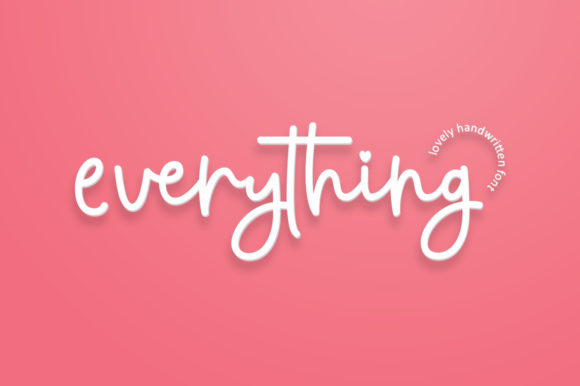
Everything Script Font: The Ultimate Guide to Modern Handwritten Typography
The Everything Script font has taken the design world by storm with its modern handwritten style, allowing users to create stunning hand-made typography in an instant. In this comprehensive article, we’ll dive into the world of Everything Script, exploring its features, benefits, and uses. Whether you’re a designer, artist, or simply a typography enthusiast, this guide is for you.
What is Everything Script Font?
The Everything Script font is a modern handwritten font designed to bring a touch of elegance and sophistication to your designs. With its fluid strokes and natural flow, this font is perfect for creating beautiful hand-made typography. Whether you’re working on a branding project, a wedding invitation, or a social media post, Everything Script is the perfect choice.
Key Features of Everything Script Font
- Modern Handwritten Style: Everything Script boasts a modern handwritten style that’s both elegant and legible.
- Fluid Strokes: The font features fluid strokes that give it a natural, hand-written feel.
- High Versatility: Everything Script is highly versatile, making it suitable for a wide range of design projects.
- Easy to Use: The font is easy to use, even for those with limited design experience.
Benefits of Using Everything Script Font
So, why should you choose Everything Script for your design projects? Here are just a few benefits of using this amazing font:
- Adds a Personal Touch: Everything Script adds a personal touch to your designs, making them stand out from the crowd.
- Enhances Readability: The font’s clear and legible design ensures that your text is easy to read.
- Time-Saving: With Everything Script, you can create beautiful hand-made typography in an instant, saving you time and effort.
Uses of Everything Script Font
Everything Script is a highly versatile font that can be used in a wide range of design projects, including:
- Branding and Logo Design: The font is perfect for creating elegant and sophisticated brand identities.
- Wedding Invitations and Stationery: Everything Script is a popular choice for wedding invitations, save-the-dates, and other stationery designs.
- Social Media Graphics: The font is great for creating eye-catching social media graphics, including Facebook posts, Instagram stories, and Twitter headers.
- Packaging Design: Everything Script can be used to create beautiful and eye-catching packaging designs.
Tips for Using Everything Script Font
Here are a few tips for getting the most out of Everything Script:
- Experiment with Font Sizes: Don’t be afraid to experiment with different font sizes to create visual interest.
- Pair with Other Fonts: Everything Script pairs well with other fonts, so don’t be afraid to get creative with font combinations.
- Use on Dark Backgrounds: The font looks great on dark backgrounds, so don’t be afraid to get creative with your design.
In conclusion, Everything Script is a modern handwritten font that’s perfect for creating beautiful hand-made typography. With its fluid strokes, natural flow, and high versatility, this font is a must-have for designers, artists, and typography enthusiasts. Whether you’re working on a branding project, a wedding invitation, or a social media post, Everything Script is the perfect choice.
- What is Everything Script font? Everything Script font is a modern handwritten font designed to bring a touch of elegance and sophistication to your designs.